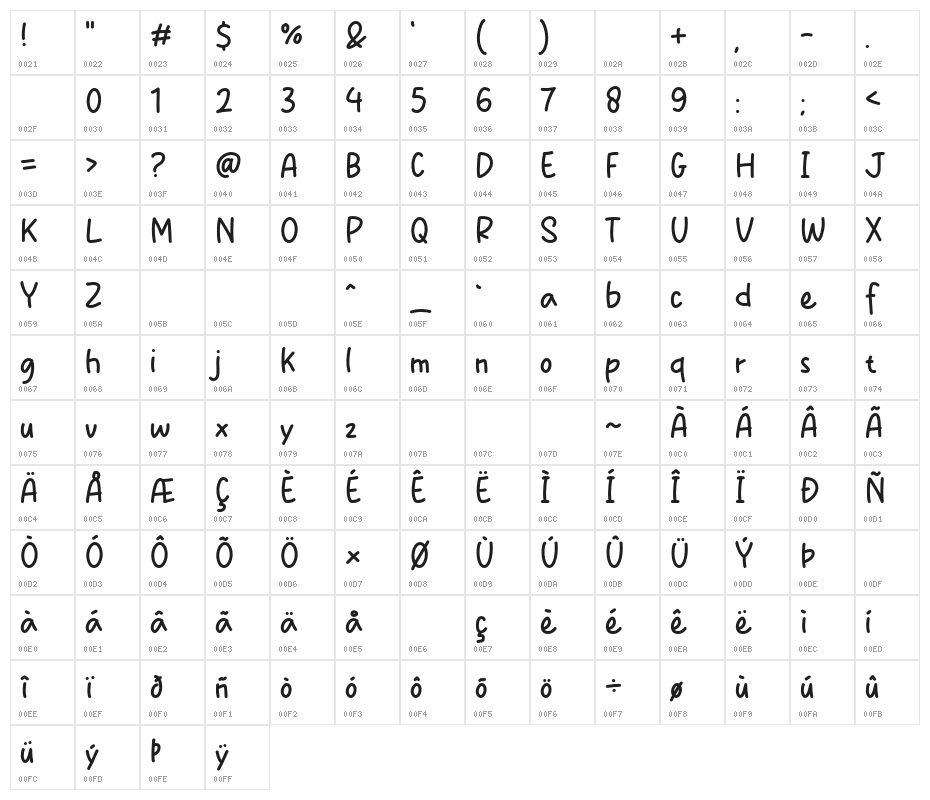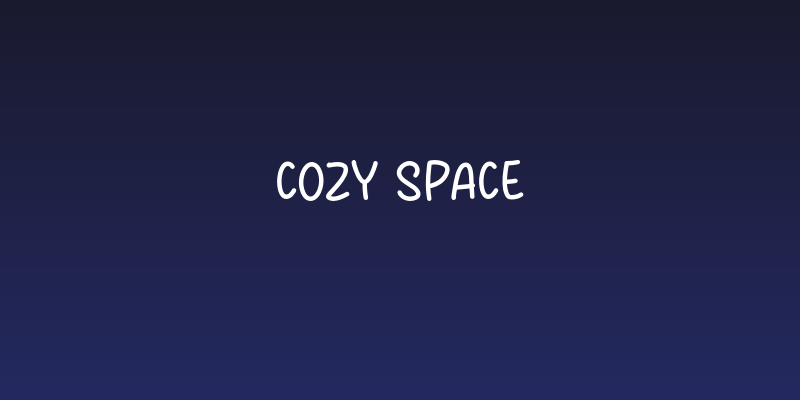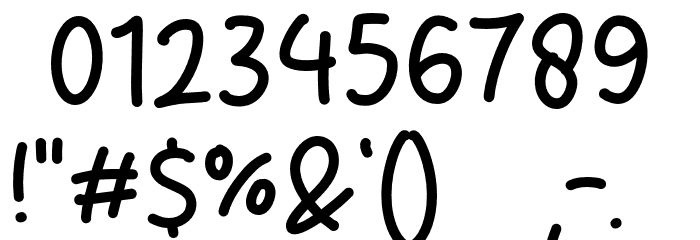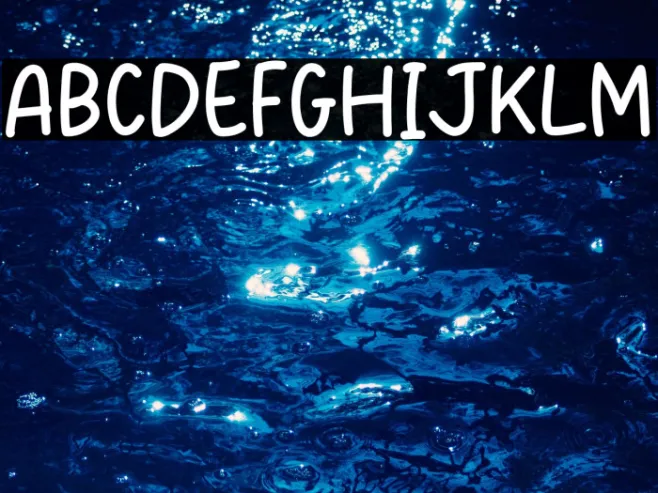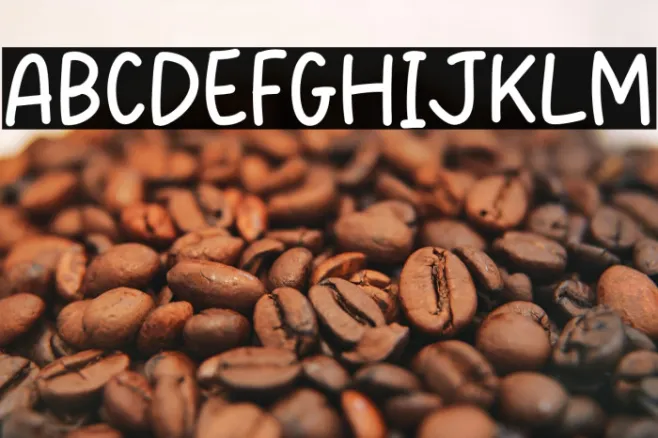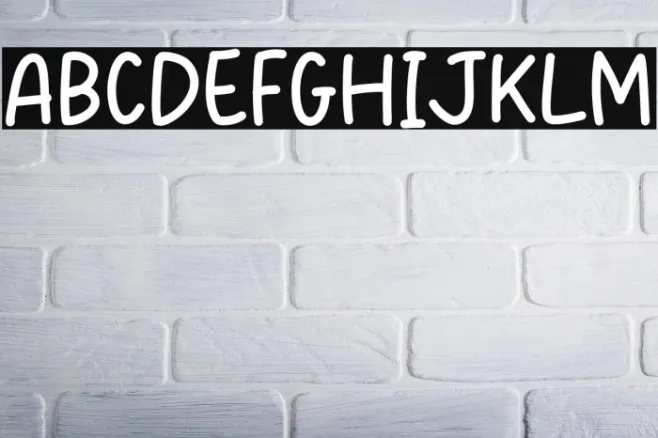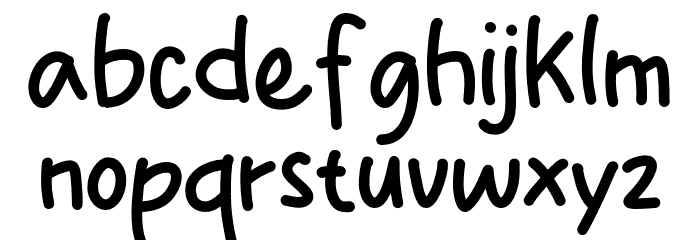
Cozy Space Font
| Gesamtstil | Casual, Playful |
| Anwendungsfall | Headlines, Informal text, Creative projects |
| Vorgeschlagene Projekte | Ideal for invitations, greeting cards, children's books, and casual branding. |